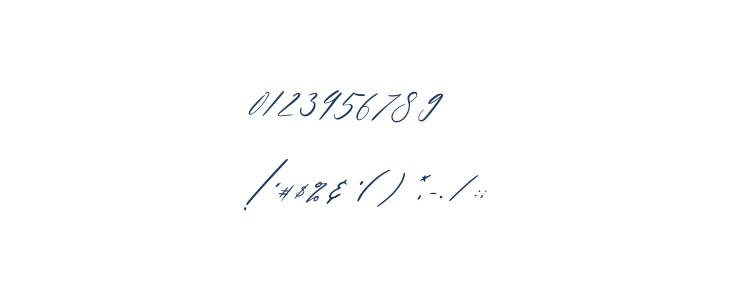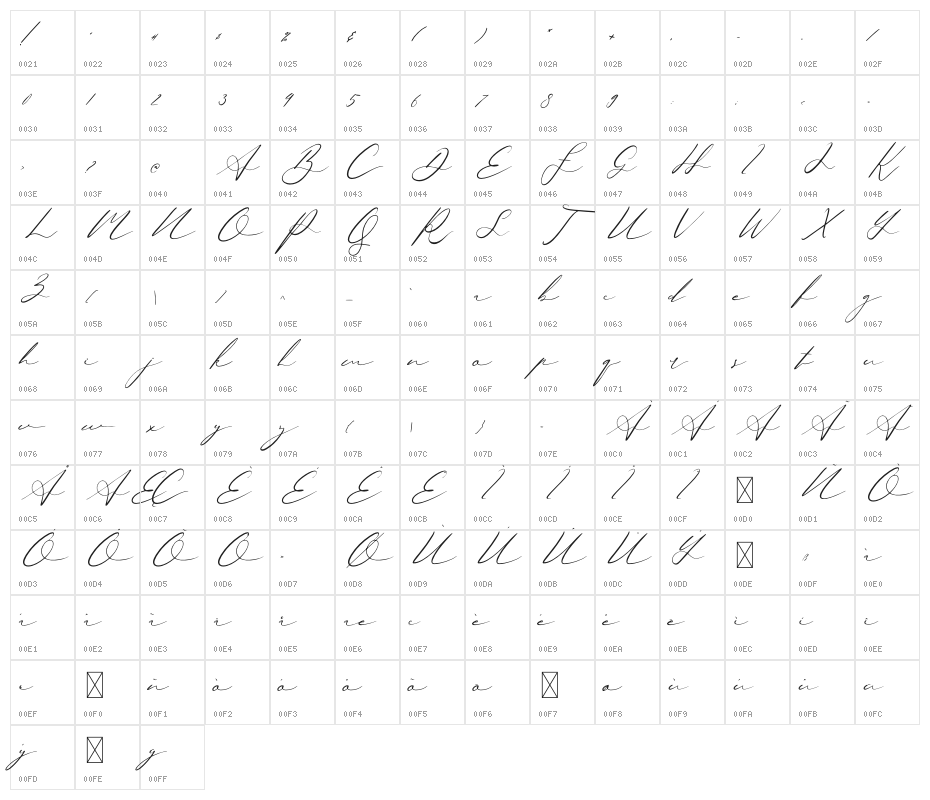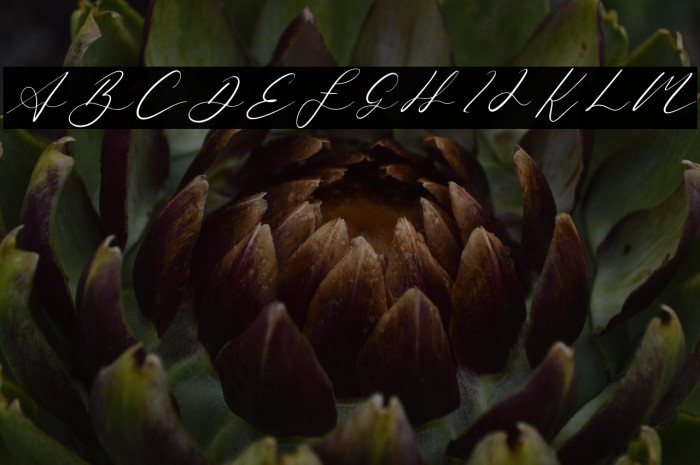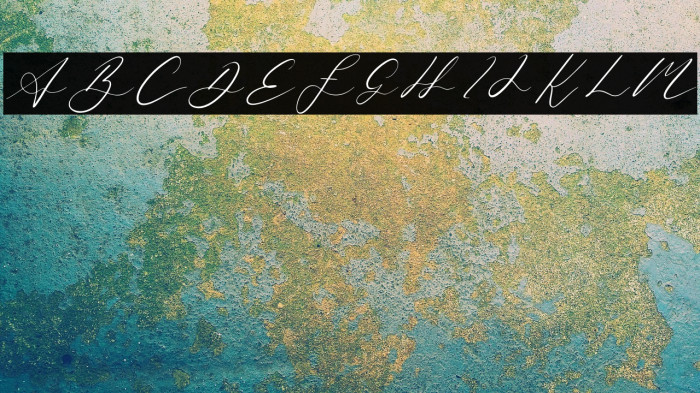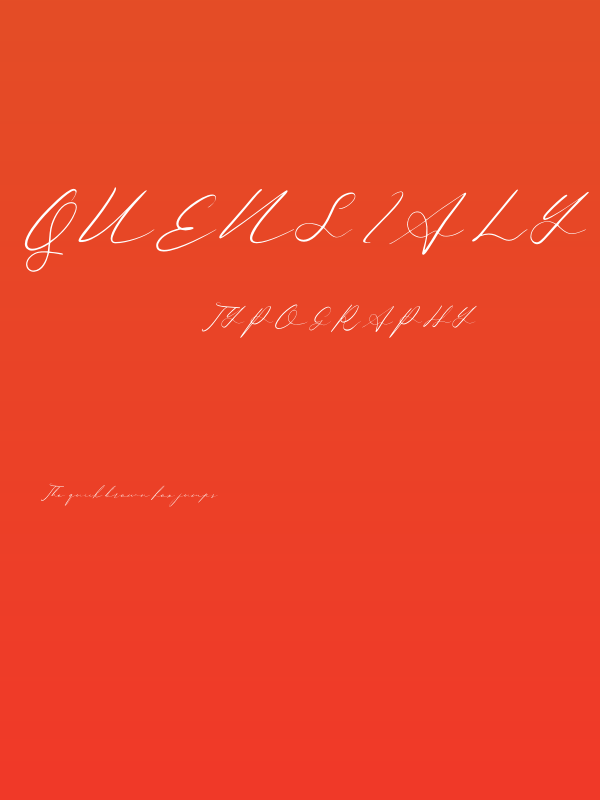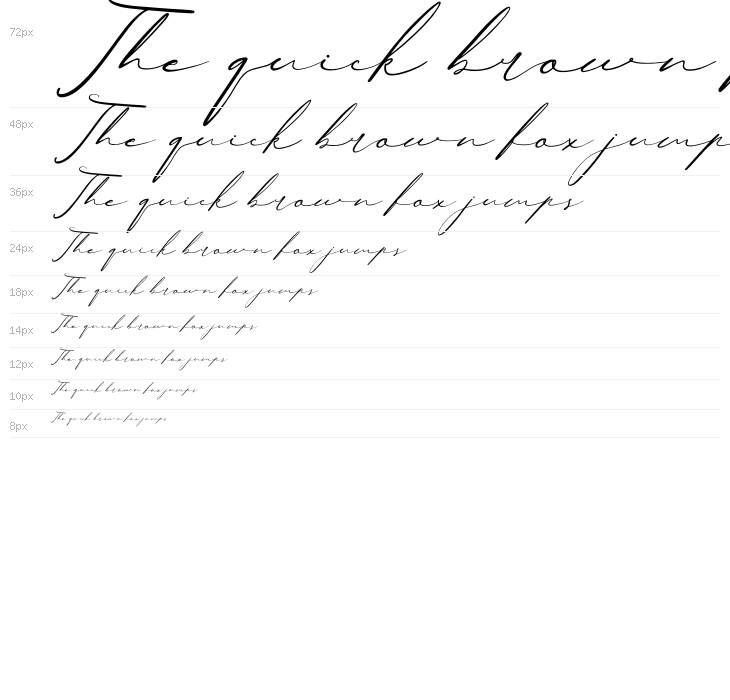
Quensialy Font
Quensialy Description
This elegant script font features fluid, interconnected strokes that mimic the natural flow of handwriting. The uppercase letters are gracefully elongated, adding a touch of sophistication, while the lowercase letters maintain a consistent rhythm with gentle curves and loops. The numerals and special characters are crafted with the same attention to detail, ensuring a harmonious appearance across all glyphs. The overall design exudes a sense of refinement and elegance, making it suitable for formal and decorative applications.
| Proposed Projects | Ideal for wedding invitations, elegant branding, personal stationery, and decorative headings. |